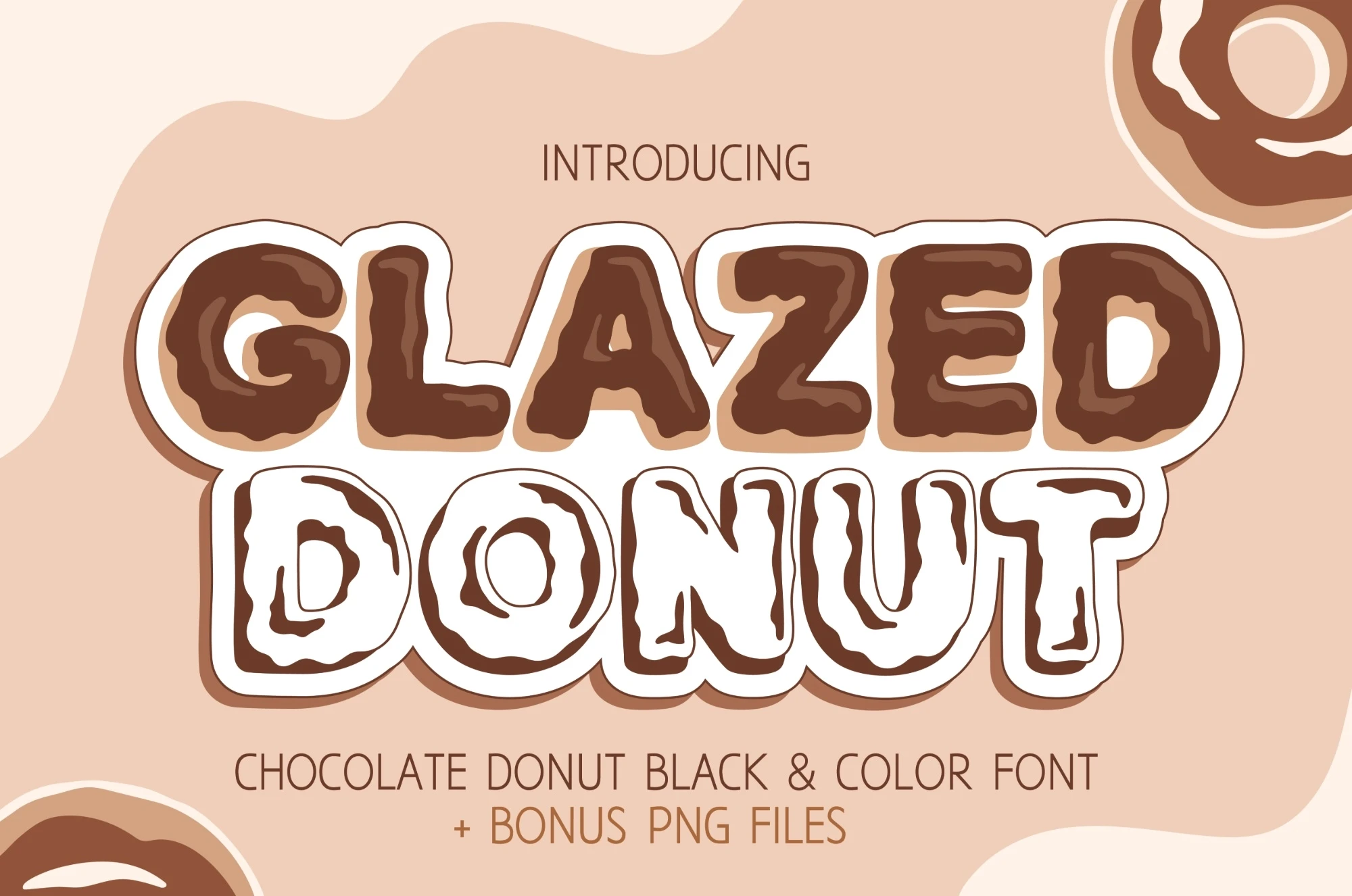
Glazed Donut Chocolate Font & Bonus PNG Image, Doughnut Font
Indulge in the delectable delight of Glazed Donut Chocolate font, an innovative and aesthetically appealing typeface. Dripping with chocolatey charm, this font replicates the decadence of a glazed donut, making it a quintessential choice for designing T-shirts, tumblers, and posters. Ideal for creating a captivating cocoa-themed design that brings a unique touch of joy and warmth to your creations. Dip into the sweetness of Glazed Donut Chocolate font and bring your design fantasies to life.